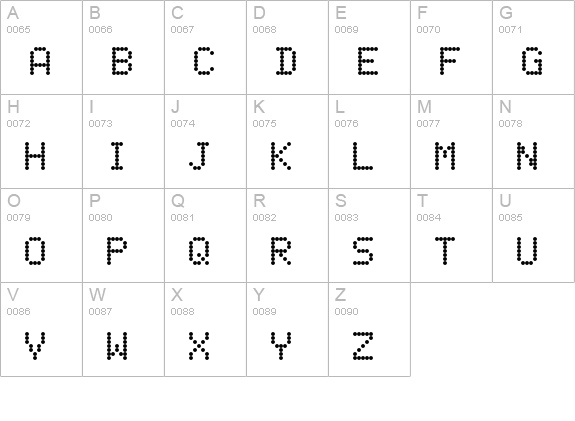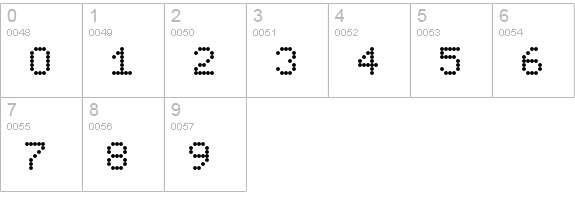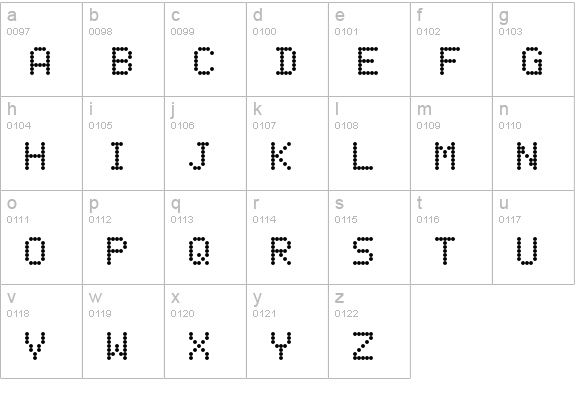
Receipt Demo Font Details
The Receipt Demo font is a unique and eye-catching typeface that is sure to make a statement. With its bold and condensed letterforms, it is perfect for creating attention-grabbing designs and headlines. The font features a vintage and retro-inspired look, giving your projects a nostalgic touch. What makes the Receipt Demo font even better is that it is absolutely free! Yes, you read that right. This fantastic font is freely available to download at FontsMarket.com. Whether you are a professional designer or just someone looking to add a touch of creativity to your projects, this font is a must-have. With its clean and legible characters, the Receipt Demo font is versatile and can be used for a wide range of design projects. From posters and flyers to logos and branding, this font will bring a unique and distinctive style to your work. Its strong and bold appearance will ensure that your message is noticed and remembered. Don't miss out on this amazing opportunity to enhance your designs with the Receipt Demo font. Download it for free today at FontsMarket.com and let your creativity shine!